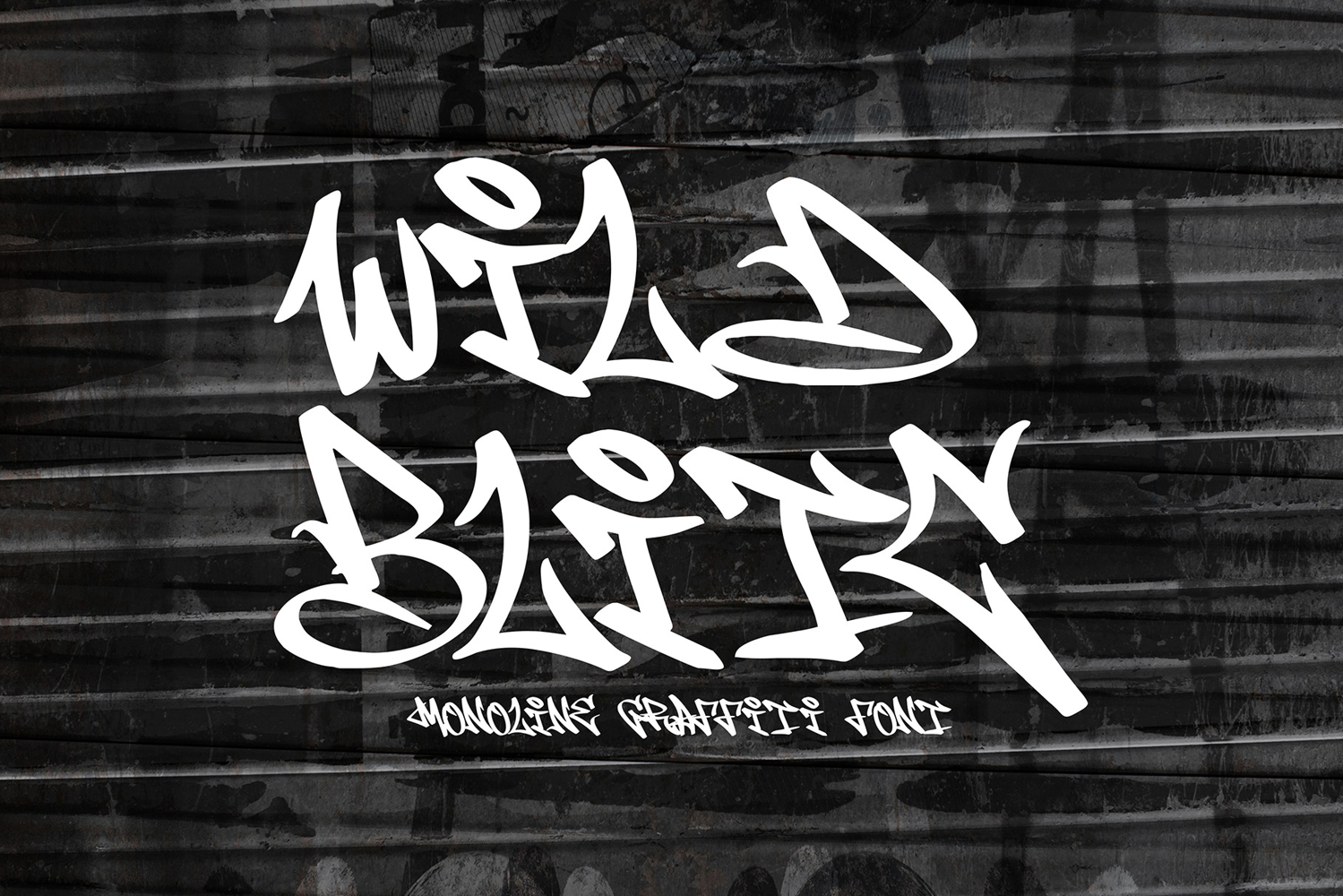
Wild Blitz | Monoline Graffiti Tag Font
Wild Blitc
Wild Blitz is a monoline graffiti font that explodes with urban energy and raw authenticity. Featuring bold letterforms, sharp edges, and fluid handstyle flow, this typeface is perfect for streetwear branding, hip-hop album covers, skate culture designs, murals, posters, and edgy digital projects. With uppercase, lowercase, numerals, punctuation, multilingual support, and ligatures, it offers designers plenty of creative freedom to craft unique compositions. The OTF and TTF formats are included, making installation easy and ensuring compatibility with Adobe Illustrator, Photoshop, InDesign, CorelDRAW, Affinity Designer, and many more. Whether you’re designing apparel, logos, or promotional material, Wild Blitz delivers a true graffiti-inspired impact that will make your work stand out.